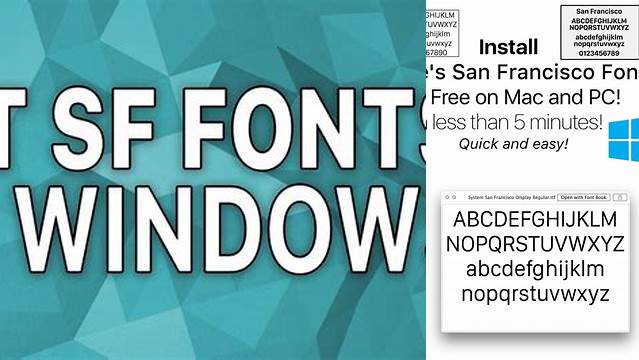
Alright, tech enthusiasts and design lovers! Let's dive into a cool topic: getting those slick San Francisco fonts on your Windows 10 machine. You know, the ones that give your text that modern, sleek Apple vibe? It's easier than you might think, and trust me, once you see your Windows interface sporting these fonts, you'll wonder why you didn't do it sooner. This guide is your go-to resource for everything you need to know. We'll cover the basics, the how-to, and even some cool design tips to get you started. So, buckle up, and let's transform your Windows 10 experience!
Understanding the Different Variants of San Francisco Fonts
The San Francisco fonts family isn't just one size fits all – oh no, it's got a whole range of variations to suit your every design whim. You've got San Francisco, which is the primary typeface, perfect for everything from headlines to body text. Then there's San Francisco Display, specifically designed for larger sizes, where the details really shine. For smaller text, there's San Francisco Text, optimized for readability. Beyond these, you might come across condensed versions, offering a space-saving alternative, and even monospaced versions, where each character takes up the same amount of horizontal space. This diversity gives you serious flexibility in your design projects. Understanding the nuances of each variant is key to using them effectively. Using the wrong version in the wrong context will affect the whole design. So, before you start, take some time to experiment with them and see what suits your needs best. It's all about picking the right tool for the job, and with the San Francisco family, you've got a whole toolkit at your disposal.
San Francisco Regular vs. San Francisco Display
Let’s break down the difference between San Francisco Regular and San Francisco Display. San Francisco Regular is your go-to for general text. It's designed to look good at a variety of sizes and is the workhorse of the San Francisco font family. San Francisco Display, on the other hand, is built for the big screen – or, well, the big text. It’s optimized for larger sizes, often used for headings, titles, and prominent elements. It has a slightly different design that looks great when blown up but might appear too detailed or cluttered when used at smaller sizes. When you're choosing between the two, think about the context. If it's body text, Regular is the safer bet. If it's a headline or a major call-out, Display could be the perfect choice. Using the right version enhances both readability and the visual appeal of your design. It's all about making your text shine, and knowing when to use each variant is half the battle.
San Francisco Text: Optimized for Readability
For those times when you need clear, concise text even at small sizes, meet San Francisco Text. This variant of the San Francisco fonts family is specially crafted to improve readability. The key is in the details – it has been tweaked to look good and maintain legibility in smaller contexts. You'll find it’s the go-to choice for things like app interfaces, small print, and any situation where clarity is king. San Francisco Text has been designed to maintain its visual integrity, even at smaller sizes. So, if your design includes a lot of small-sized text, or you want to make sure your content is readable on different devices, San Francisco Text is your friend. Using the right font for the job is very important. It will enhance your design and make it easier for readers to interact with it.